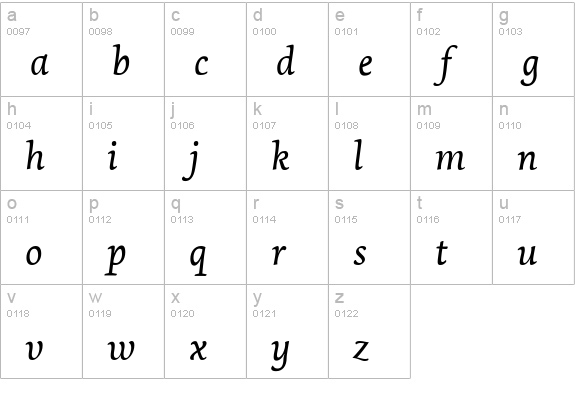
Dolly-Italic is a distinctive, italic variant in the Dolly typeface family \xE2\x80\x94 well suited to design and typography projects.
Dolly-Italic font is a sleek and sophisticated typeface that exudes elegance and modernity. Its italic style adds a touch of flair and grace to any design project, making it perfect for conveying a sense of sophistication and style. The clean lines and subtle curves of Dolly-Italic give it a timeless appeal that is both classic and contemporary. Whether used for headlines, body text, or branding, this font is sure to make a statement. And the best part? Dolly-Italic font is free to download at FontsMarket.com. Take advantage of this incredible offer and enhance your designs with this stunning typeface today!